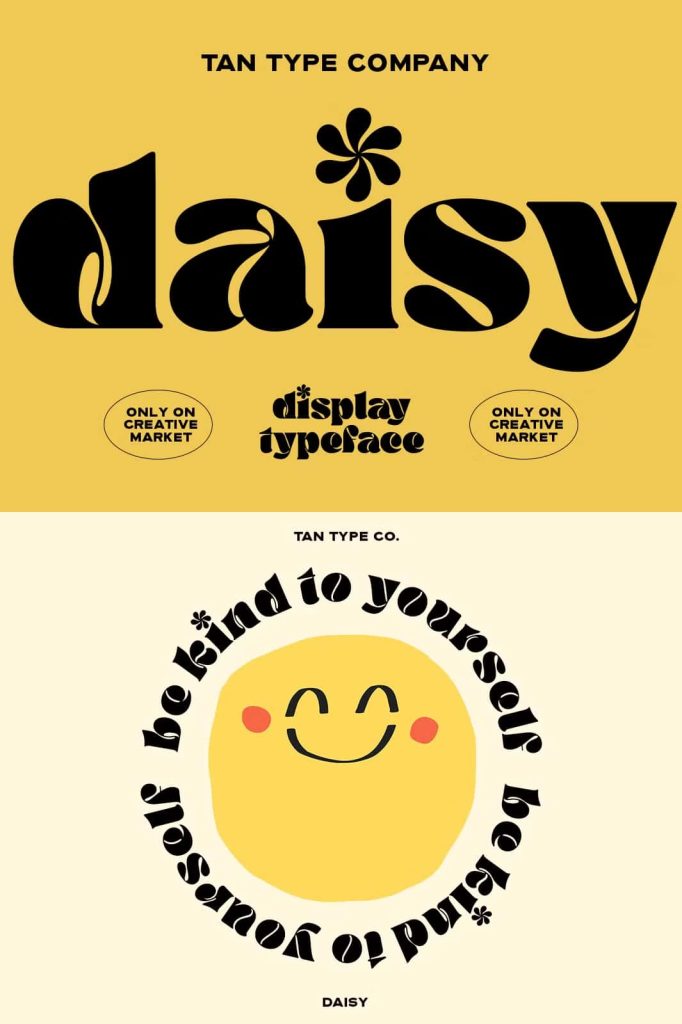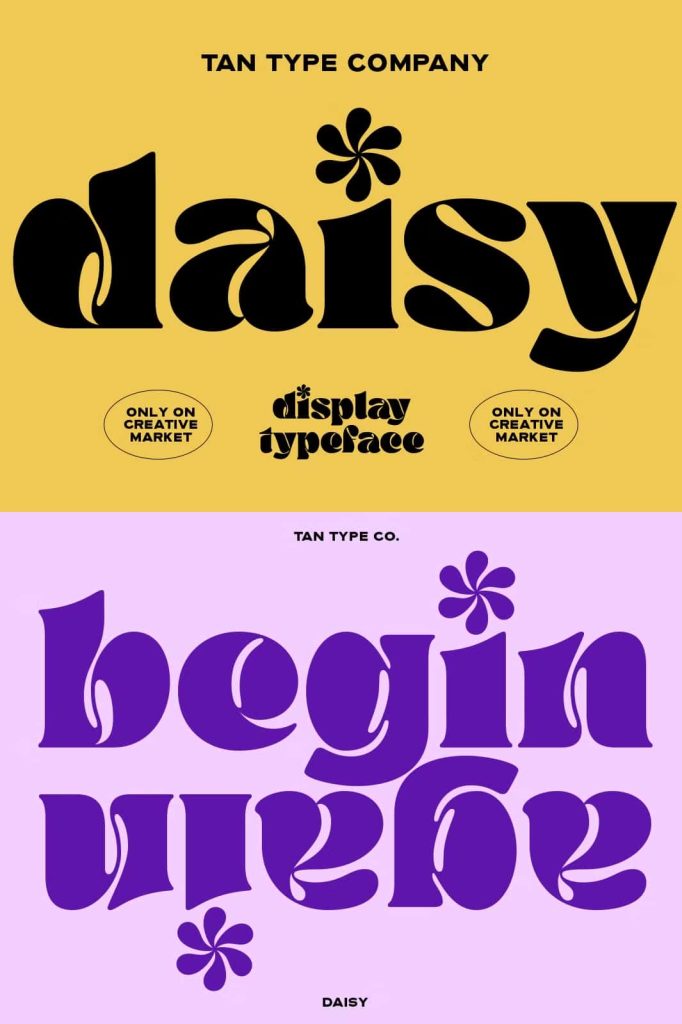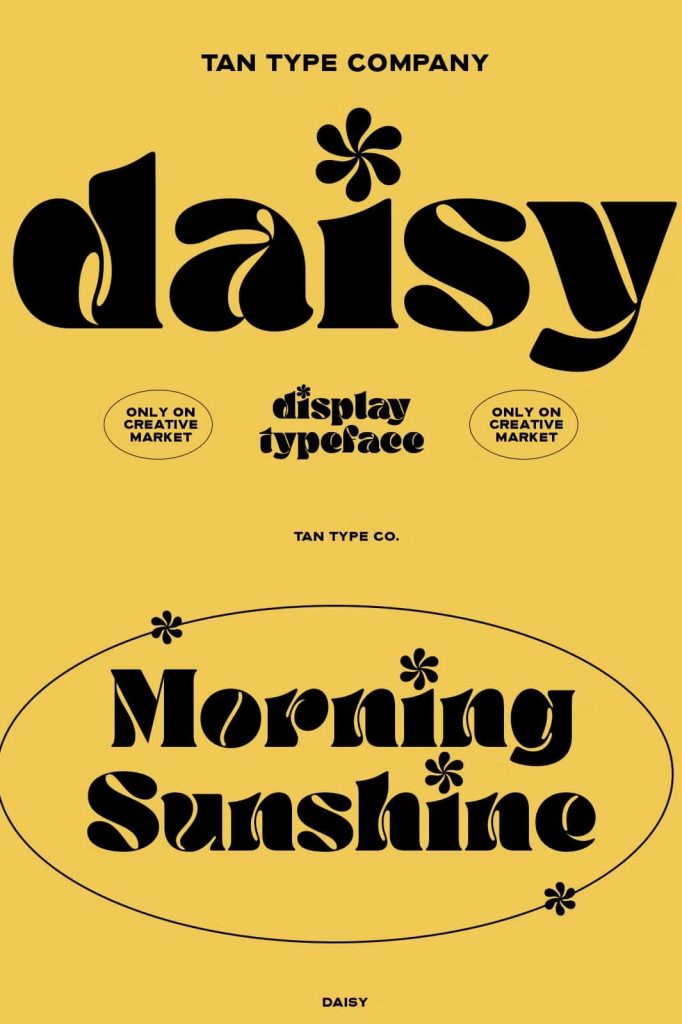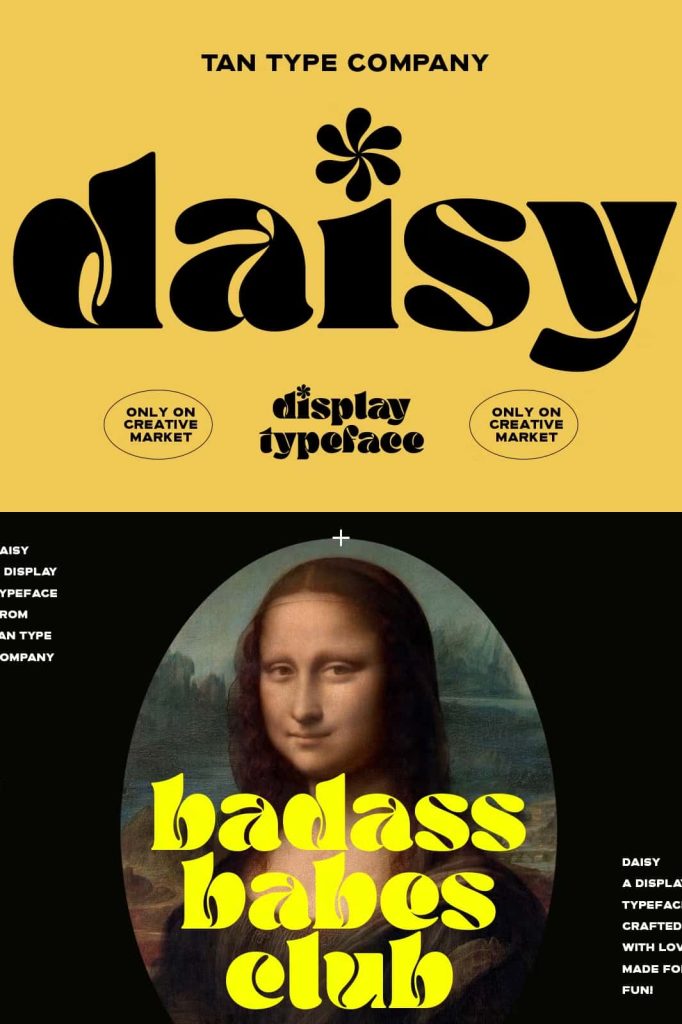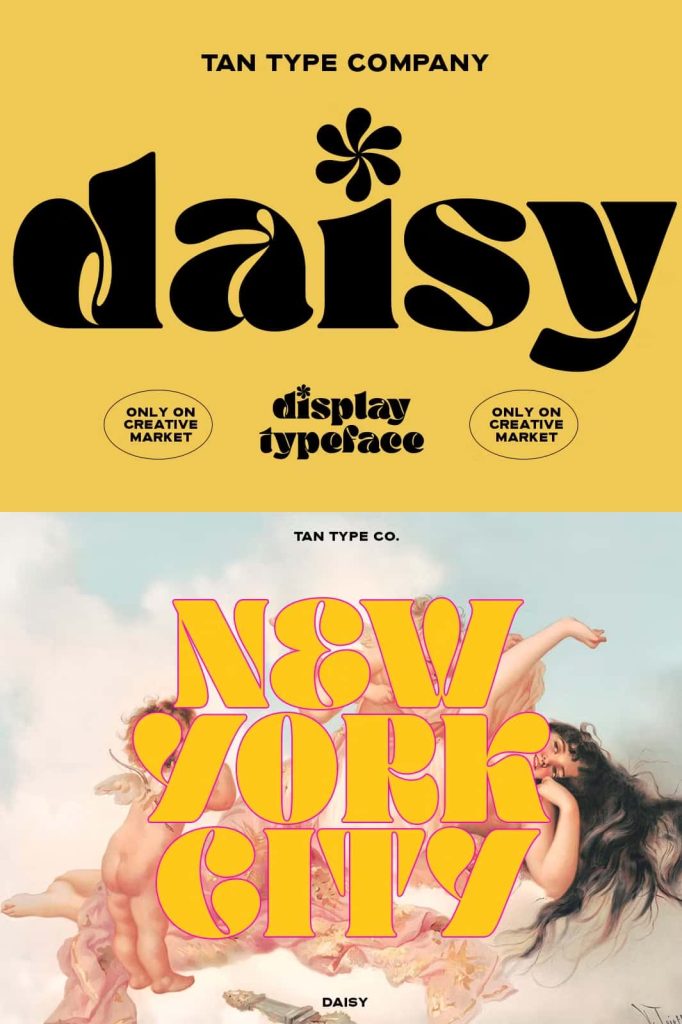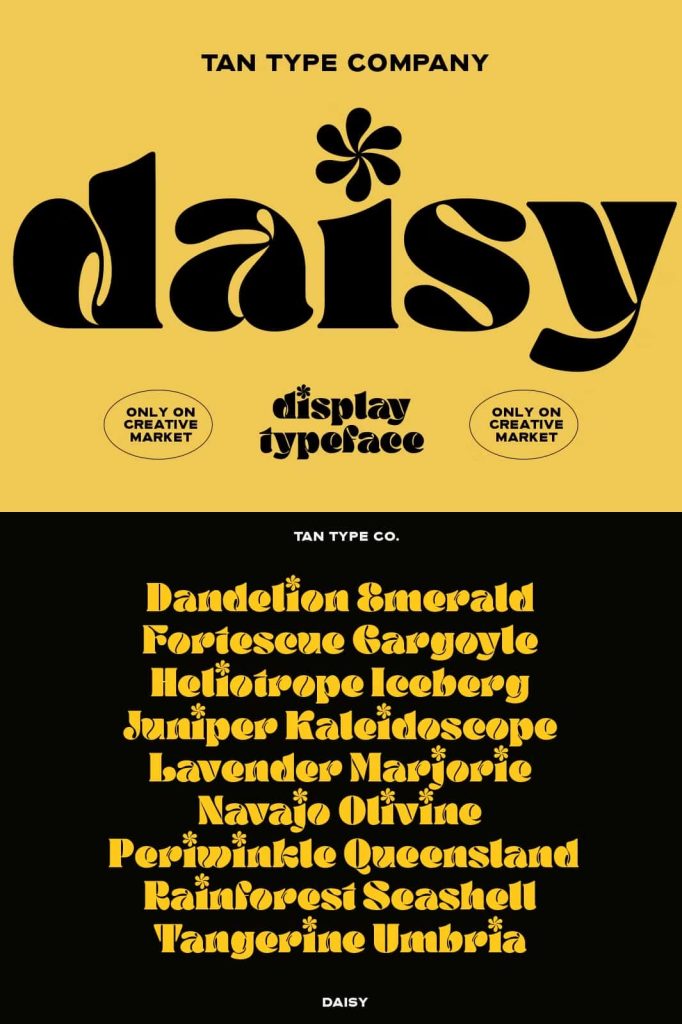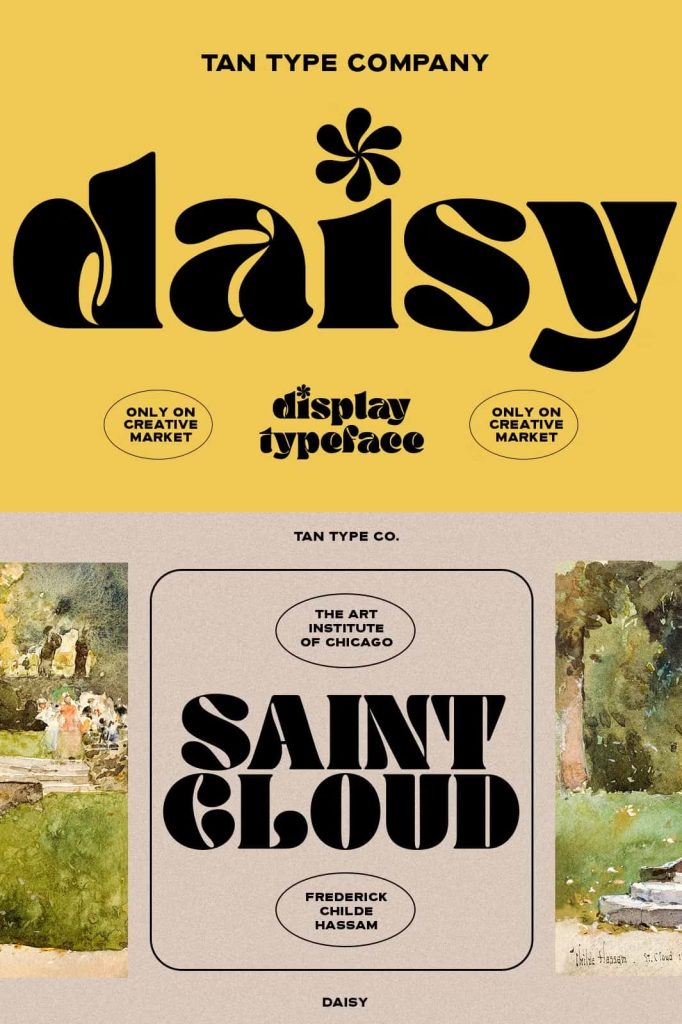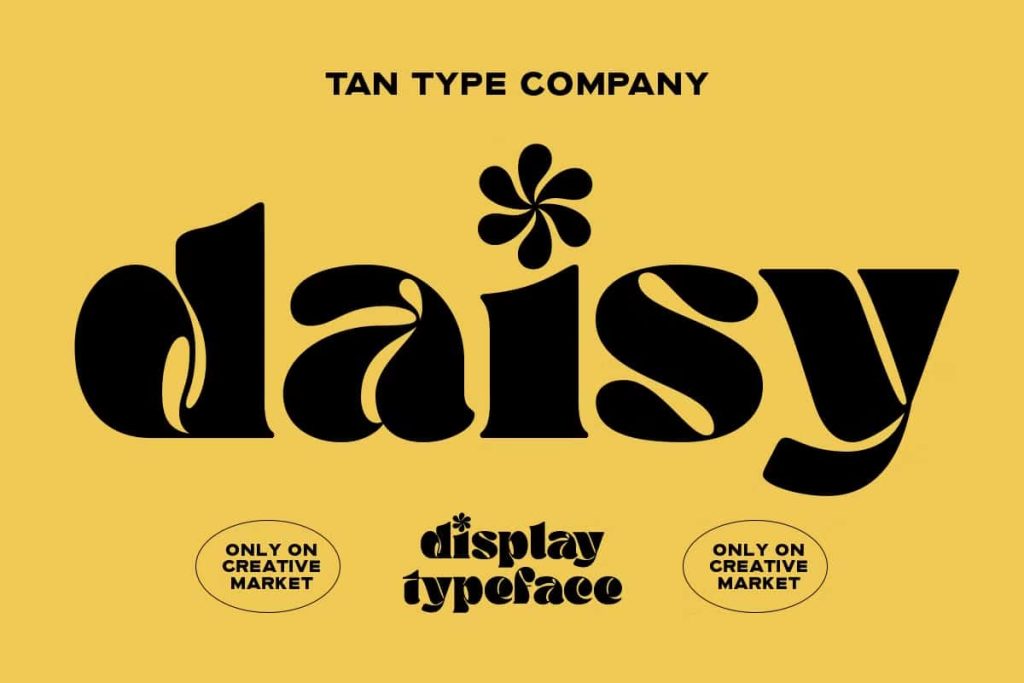
TAN-DAISY is a display typeface full of retro power. It’s quirky, groovy, and funky— definitely charming. Bold and thick, a fun typeface to play with!